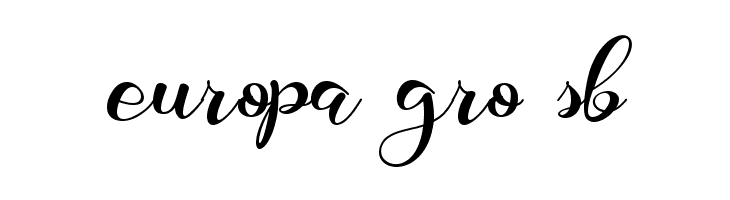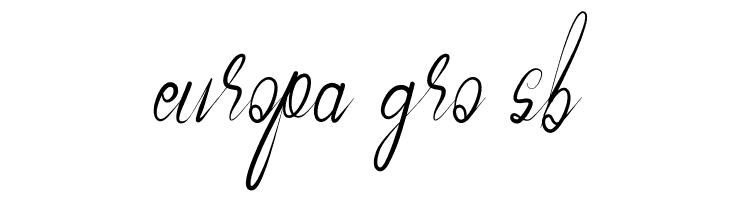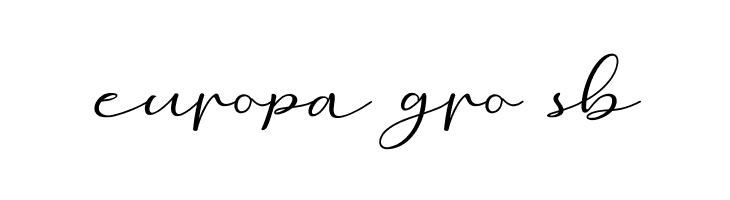
A bold, flowing script font with elegant cursive letterforms.
A playful and elegant script font with flowing, interconnected strokes.
A cursive, handwritten font with elegant loops and swashes.
A fluid and elegant script font with smooth, flowing lines and graceful curves.
A graceful script font with fluid, connected strokes and elegant curves.
A playful, handwritten font with bold, irregular strokes and whimsical details.
A playful, handwritten font with bold, flowing strokes and a casual aesthetic.
An elegant and fluid script font with a handwritten feel.
A romantic, cursive font with elegant loops and swashes.
A bold, playful font with rounded characters and heart-shaped accents.